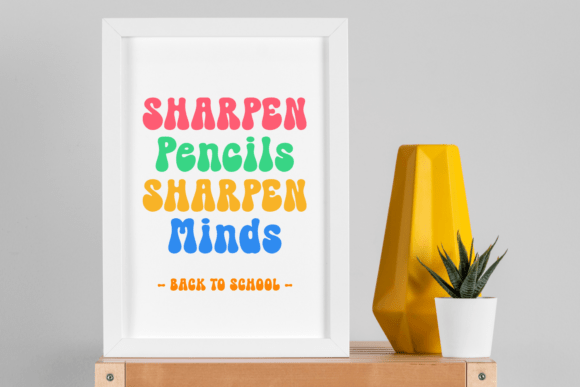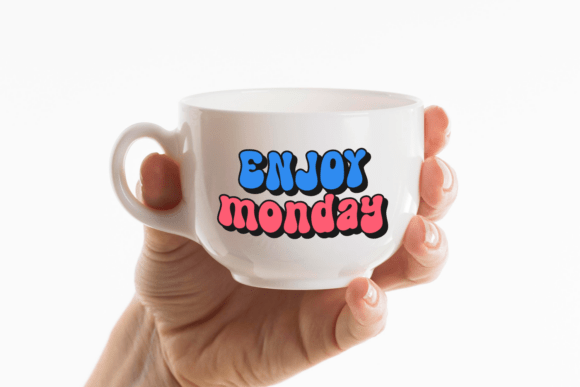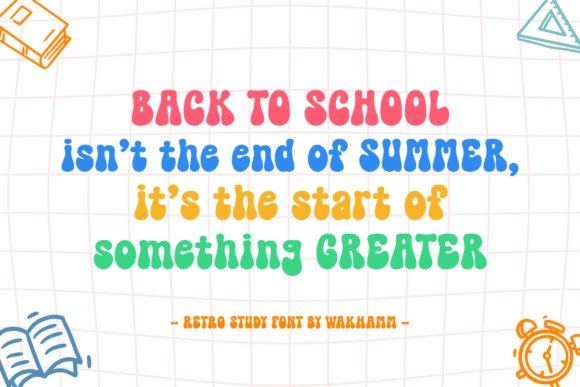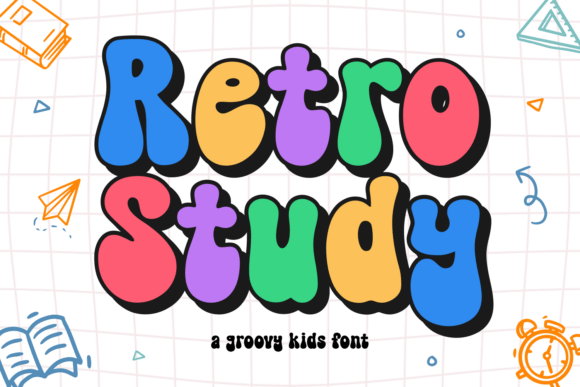
Introduction to Retro Study Font
Meet the โ€˜Retro Studyโ€™ font, a spellbinding fusion of charisma and artistry, ingeniously forged for mentors, students, and all scholastic enthusiasts.
Its delightful charm echoes the wonder of a schoolโ€™s inaugural day, morphing alphabets into darling sketches of affection and wisdom This fascinating set brims with six unique styles, each echoing the ethos of scholarship paper, pencil, and even a tribute to our planetโ€™s day.
Key Features of Retro Study Font
Why Choose Retro Study Font?